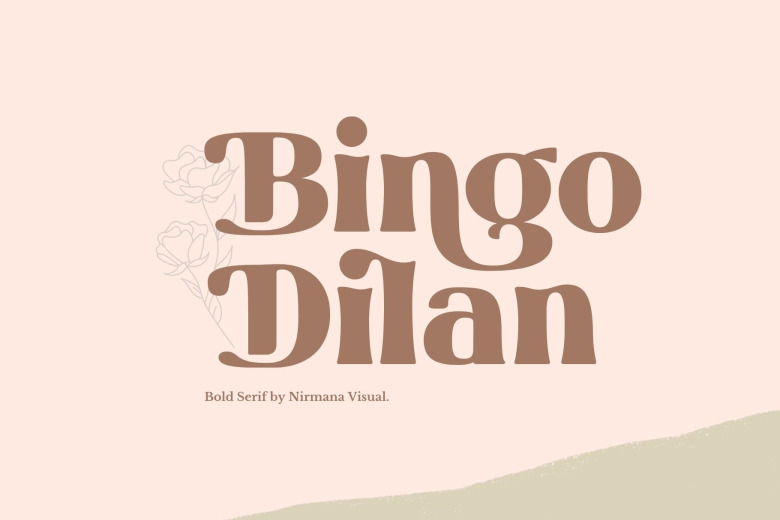
Bingo Dilan Font
Bingo Dilan evokes a refined yet playful spirit. Its alternating weights and flourishes imbue an androgynous appeal suitable for any genre promoting self-expression and modern sophistication. Available in the Unicode encoding, its extensive glyph set unleashes creative possibilities for designers of all stripes.
Bingo Dilan Serif Font